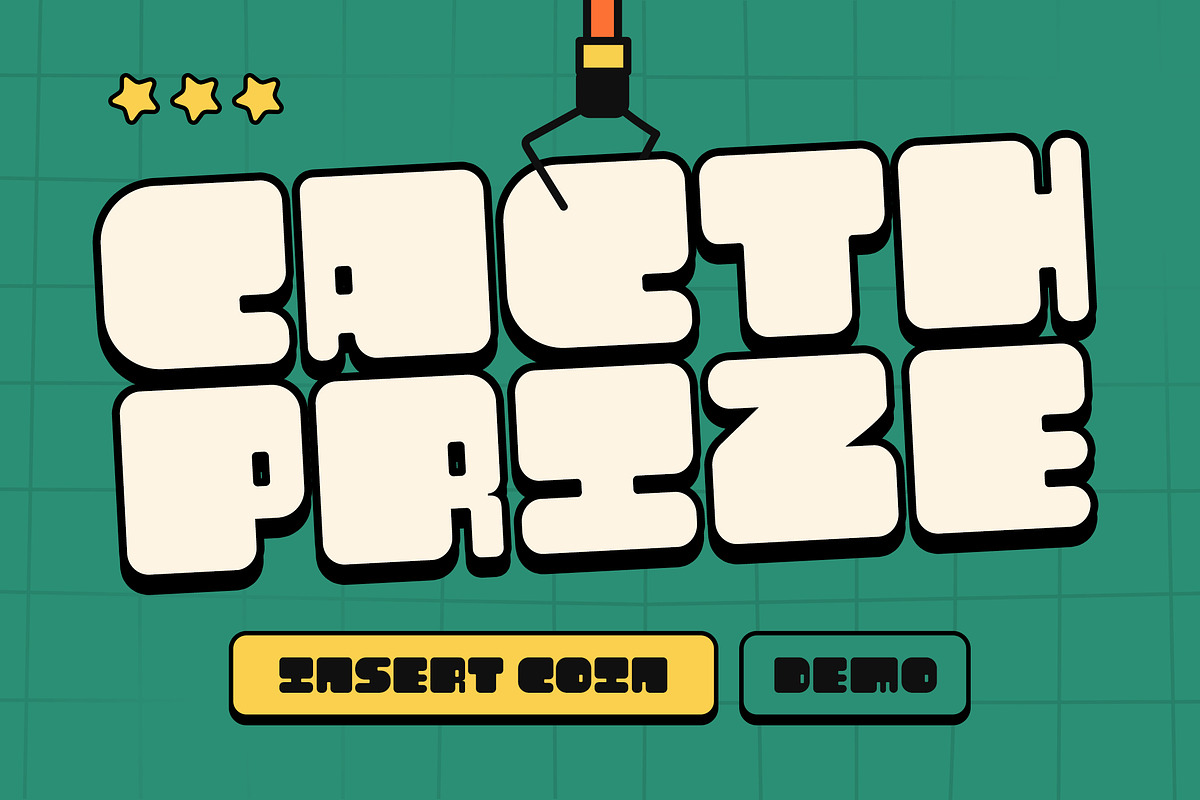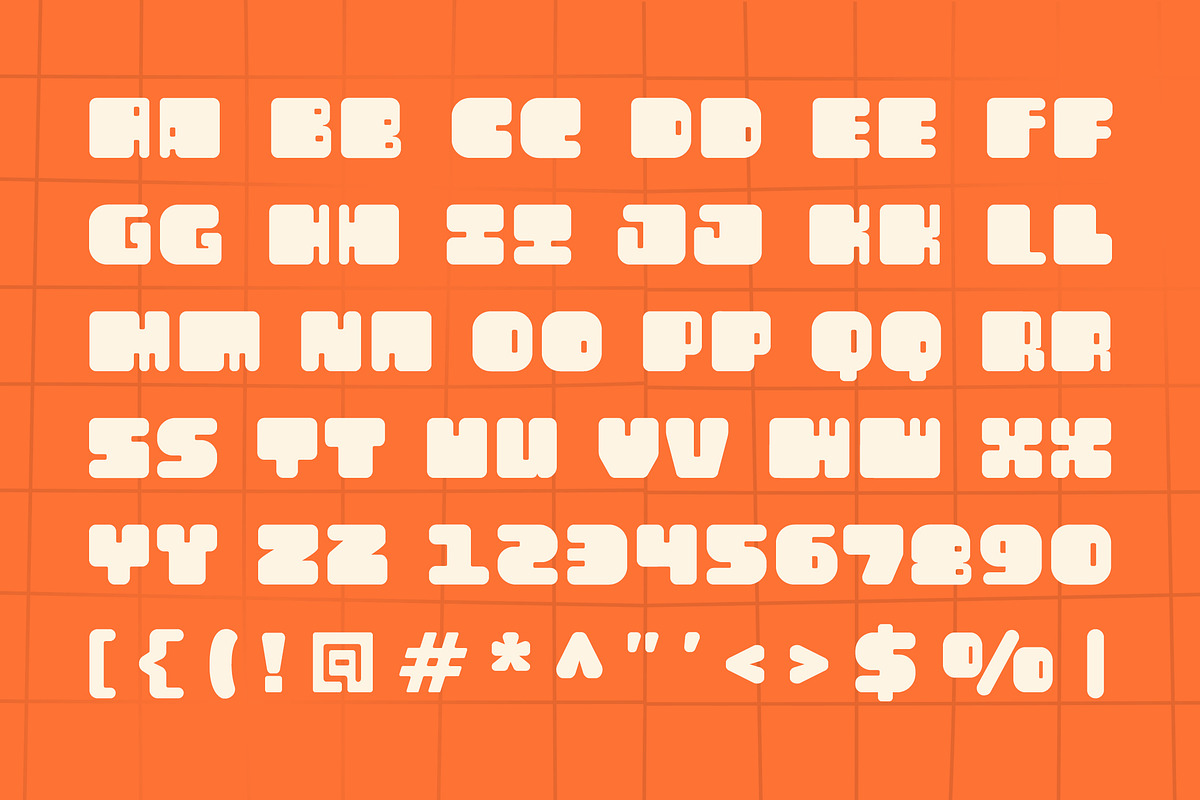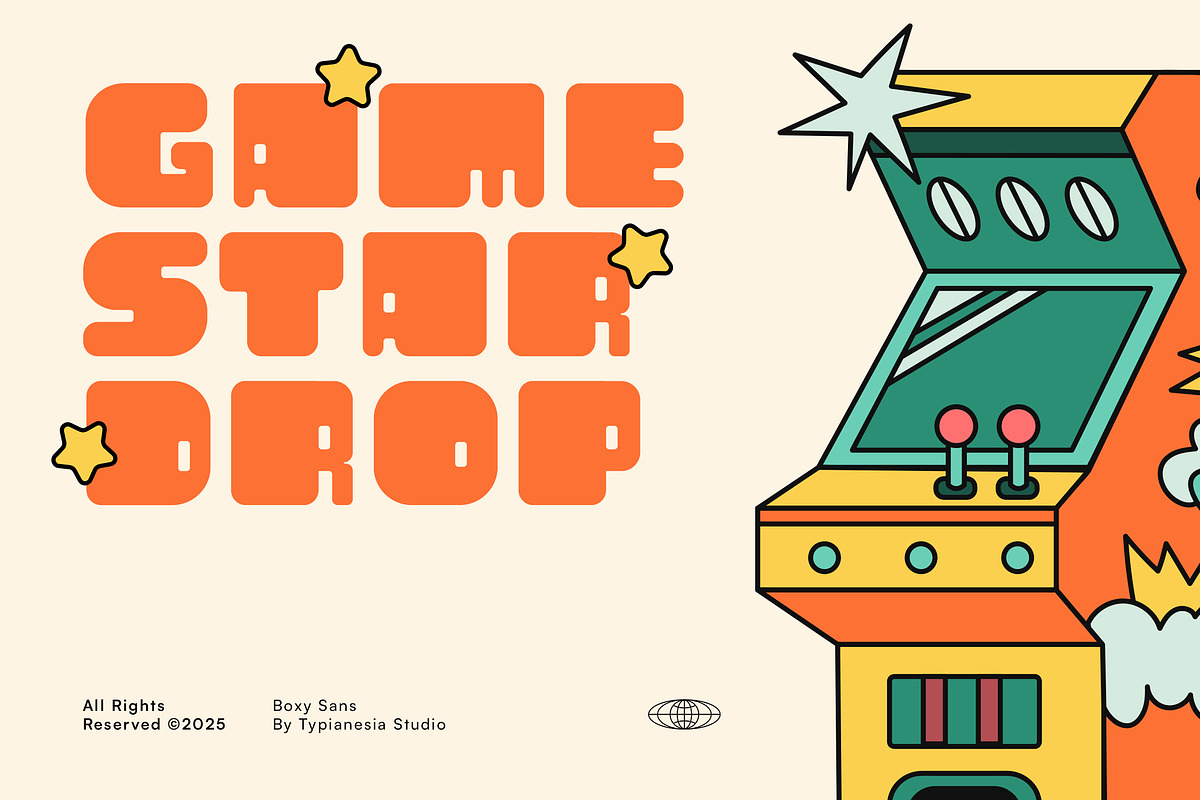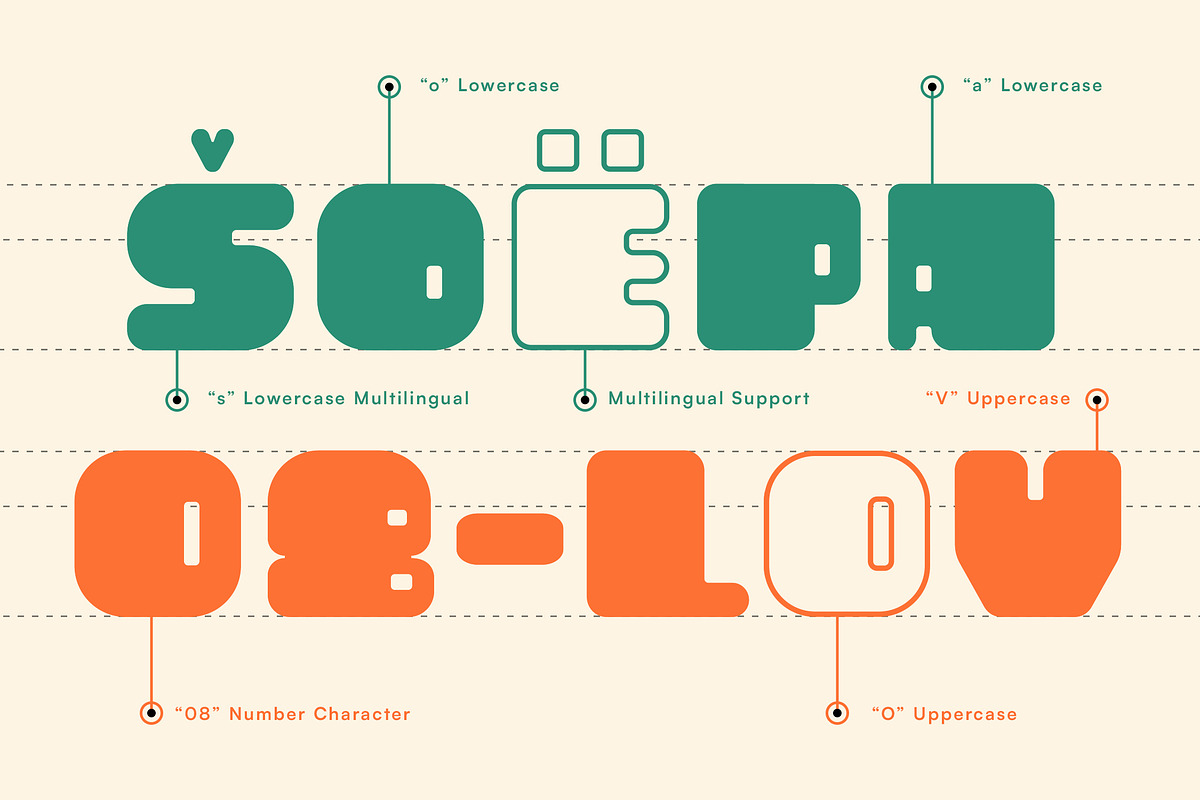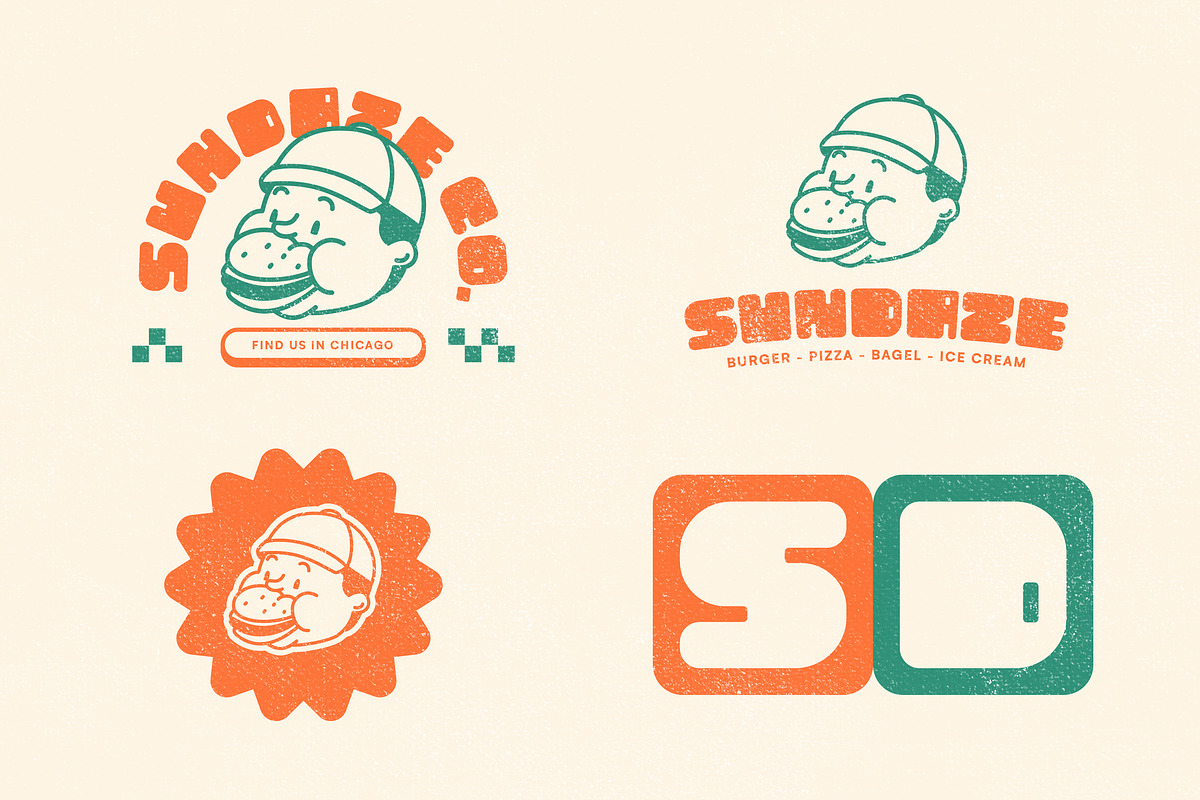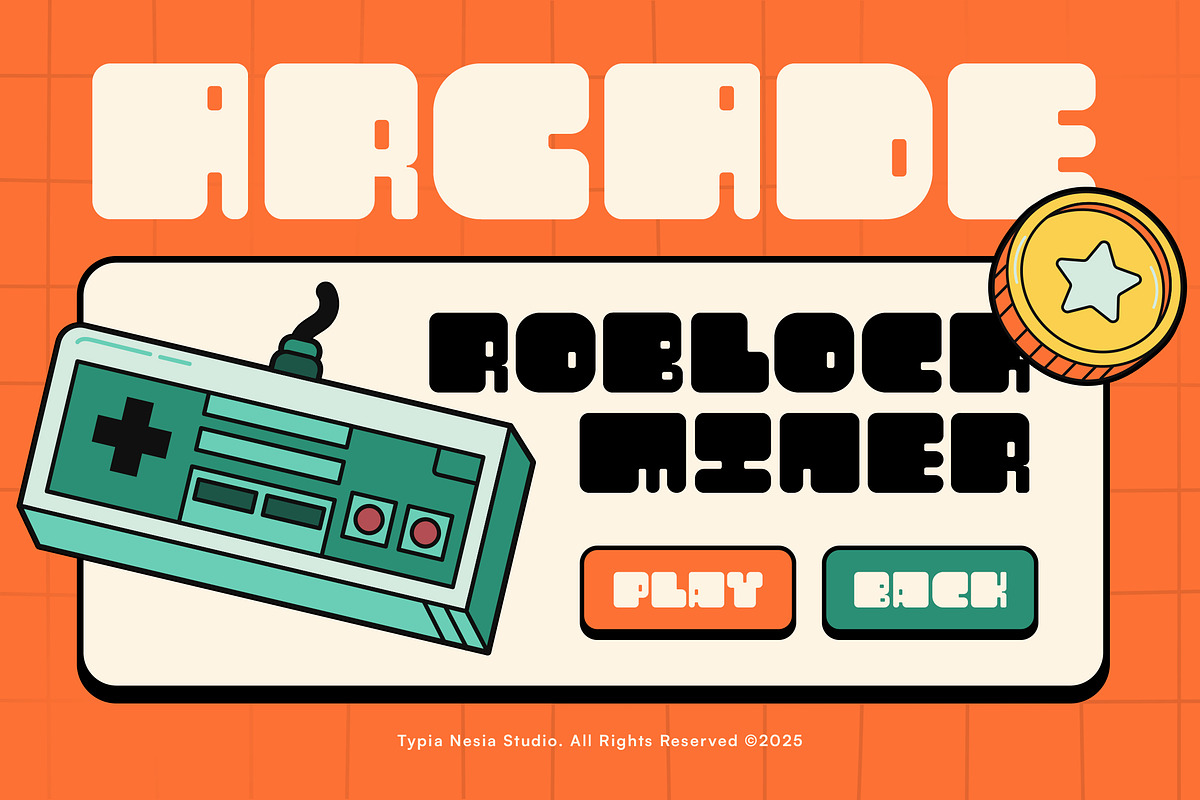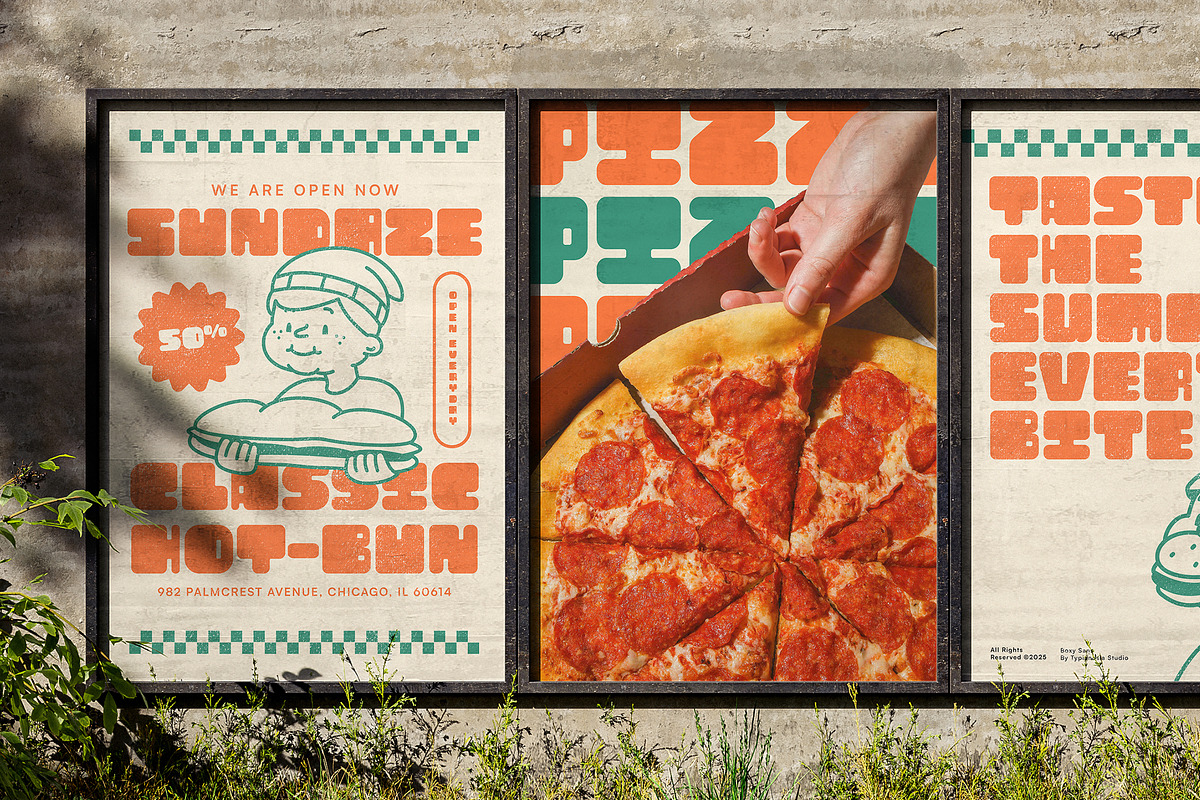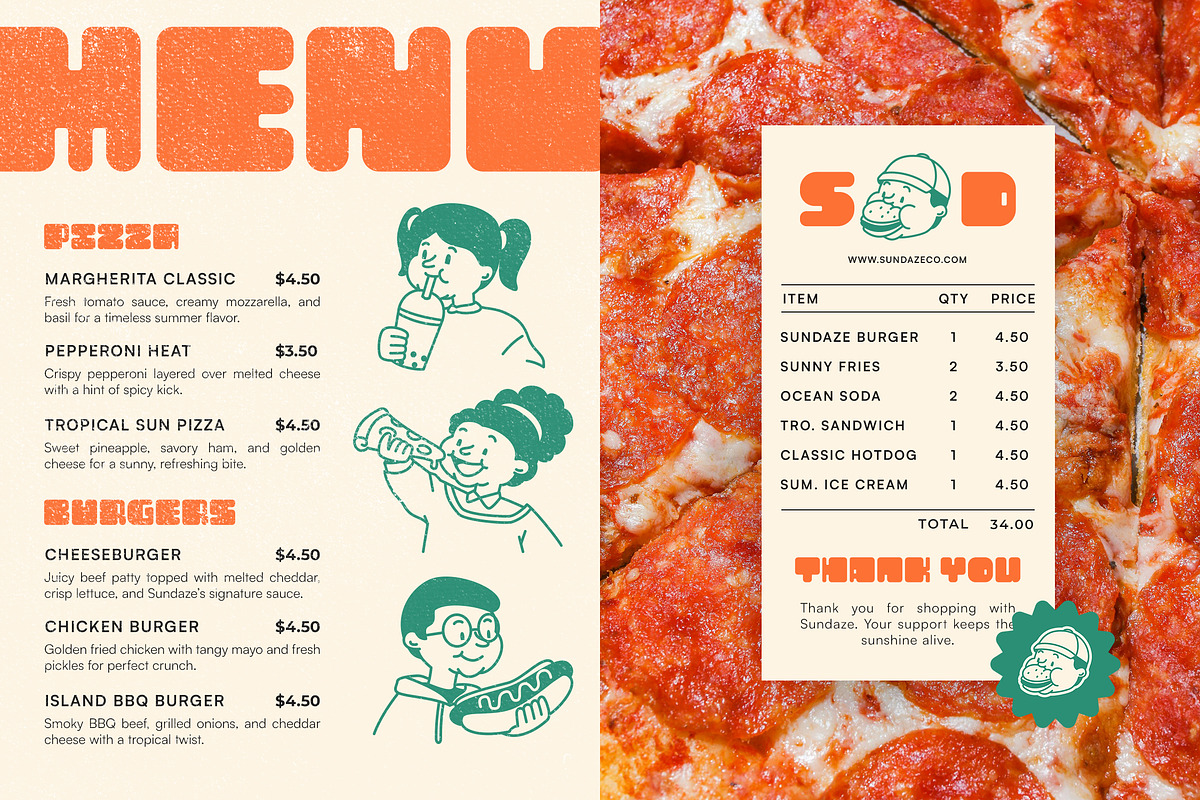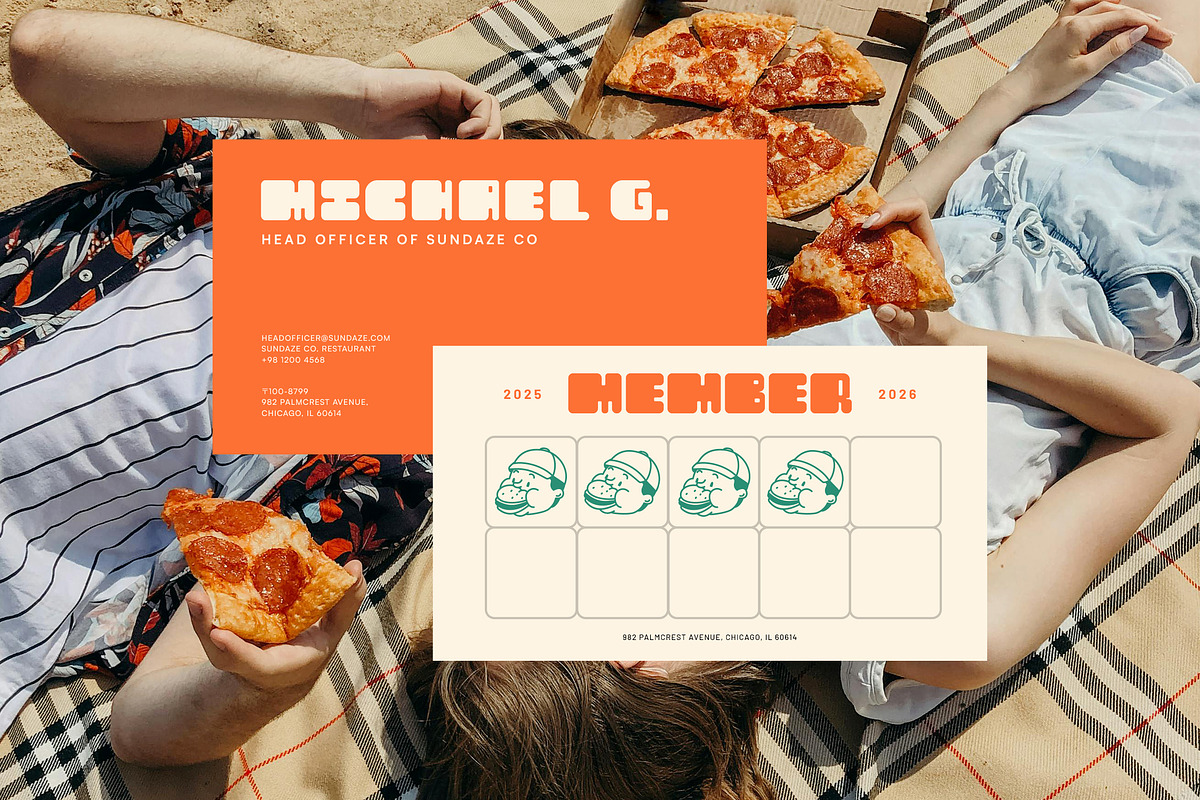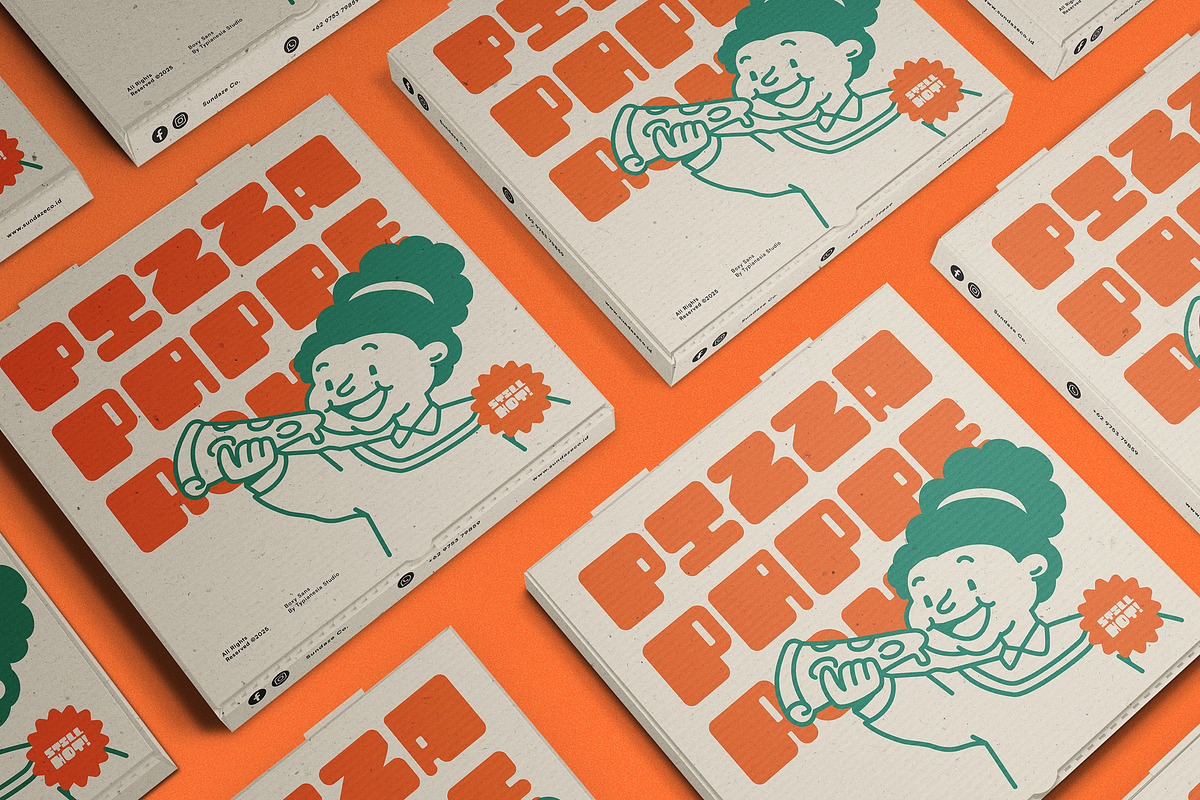
Haltime – Bold Retro Boxy Font
Haltime – Bold Retro Rounded Boxy Sans Font - Modern Playful Groovy Logo Display Font
Haltime – Bold Retro Rounded Boxy Sans Font is a playful yet modern display typeface designed to bring bold personality and nostalgic charm into your visuals. Featuring strong boxy shapes with smooth rounded corners, Halftime perfectly blends bold, retro, and groovy aesthetics with a clean sans structure, making it highly versatile for eye-catching logos, fun branding, colorful packaging, bakery, café, kid-focused designs, games, arcade themes, and any creative projects that need to feel approachable, joyful, and memorable. Haltime's confident letterforms deliver high readability while maintaining a playful tone that stands out across digital and print media.